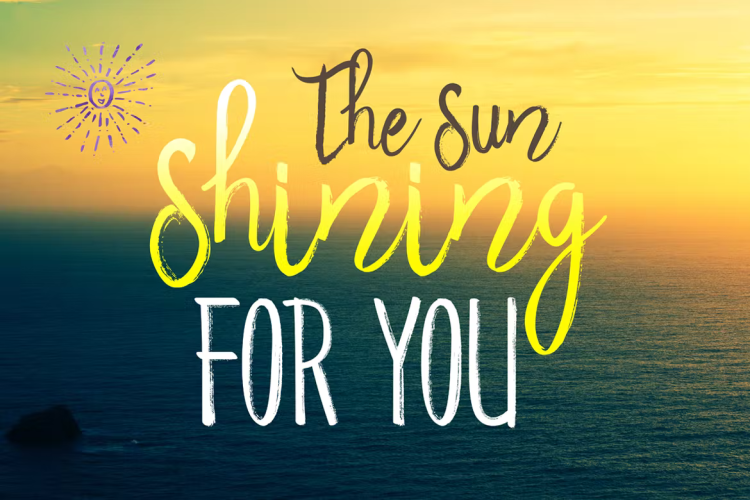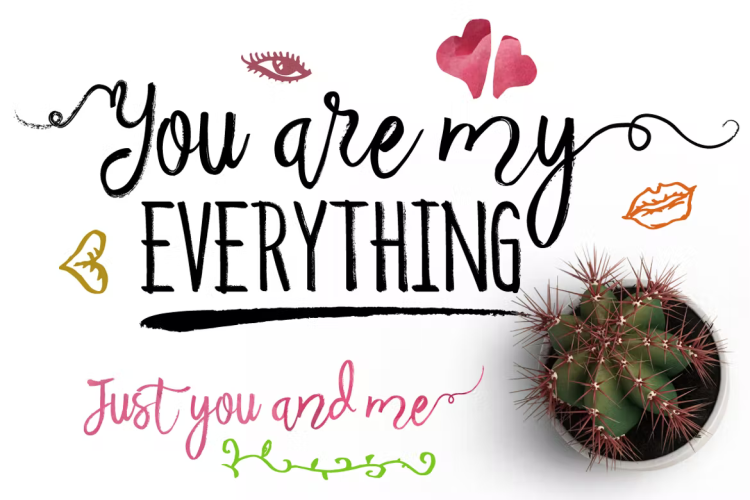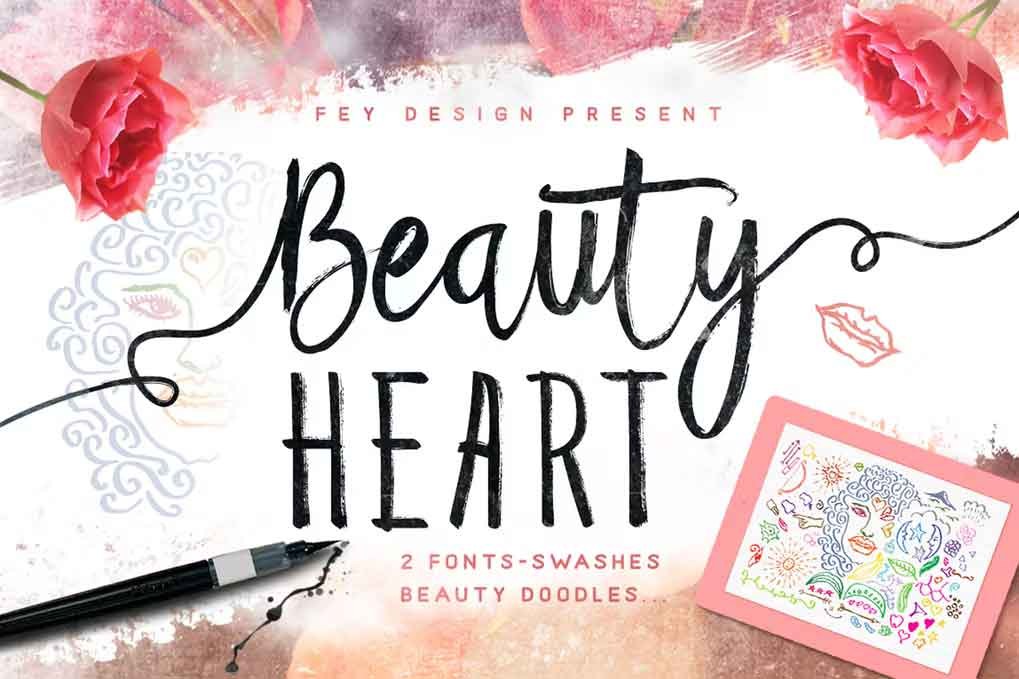
Beauty Heart Script Font
Beauty Heart Script
This is Handrawn Brush font, made with handmade, doodles included with natural brushes handmade and modern vintage style, Beauty Heart Script Brush Calligraphy style, Suitable for design, element design, wedding, event, t-shirt, logo, badges, sticker, and awesome work, etc…
Where Beauty Heart Script Font works best
Beauty Heart Script Font brings a personal, handwritten warmth to invitations, menus and place cards.
Craft brands — coffee, cosmetics, bakery — use scripts like Beauty Heart Script Font for signature-style logos and labels.
Pair Beauty Heart Script Font with a plain sans for quotes, stories and Pinterest pins that feel handmade.
What is Beauty Heart Script Font good for?
Beauty Heart Script Font is a Script And Handwritten typeface tagged Branding, Brush, Calligraphy, Handwritten. It works well for headlines, logos, posters, social media graphics and branding projects that need a distinctive script and handwritten look.